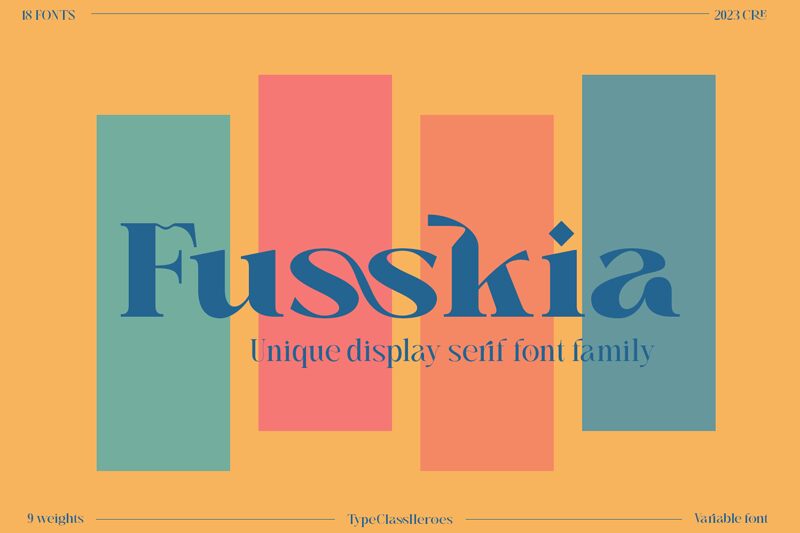
Fusskia font by TypeClassHeroes is a striking serif font, blending elegance with boldness to capture attention. With its classic serifs and uniquely curved characters, this free font stands out as both sophisticated and contemporary. Its refined style makes it perfect for editorial designs, branding projects, and luxurious packaging.
The exaggerated serif details lend an air of sophistication, while the sleek lines ensure readability across digital and print media. Given its distinctive aesthetic, Fusskia font is ideal for headlines or logos where you want to make a memorable impact.